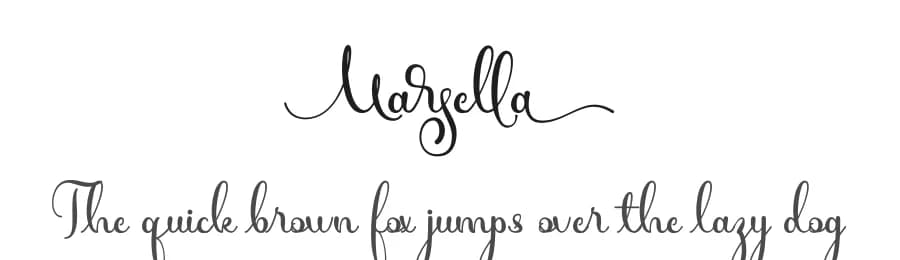
| Glyph Count | 257 glyphs |
| Designer | Doehantz Studio - Abduhan Fikhri |
Marsella supports 107 languages.
Marsella Font is a script font that shines as a display or heading face. Pair it with a clean sans-serif or serif font for body text β the contrast creates a clear hierarchy while the two styles stay balanced and easy to read.